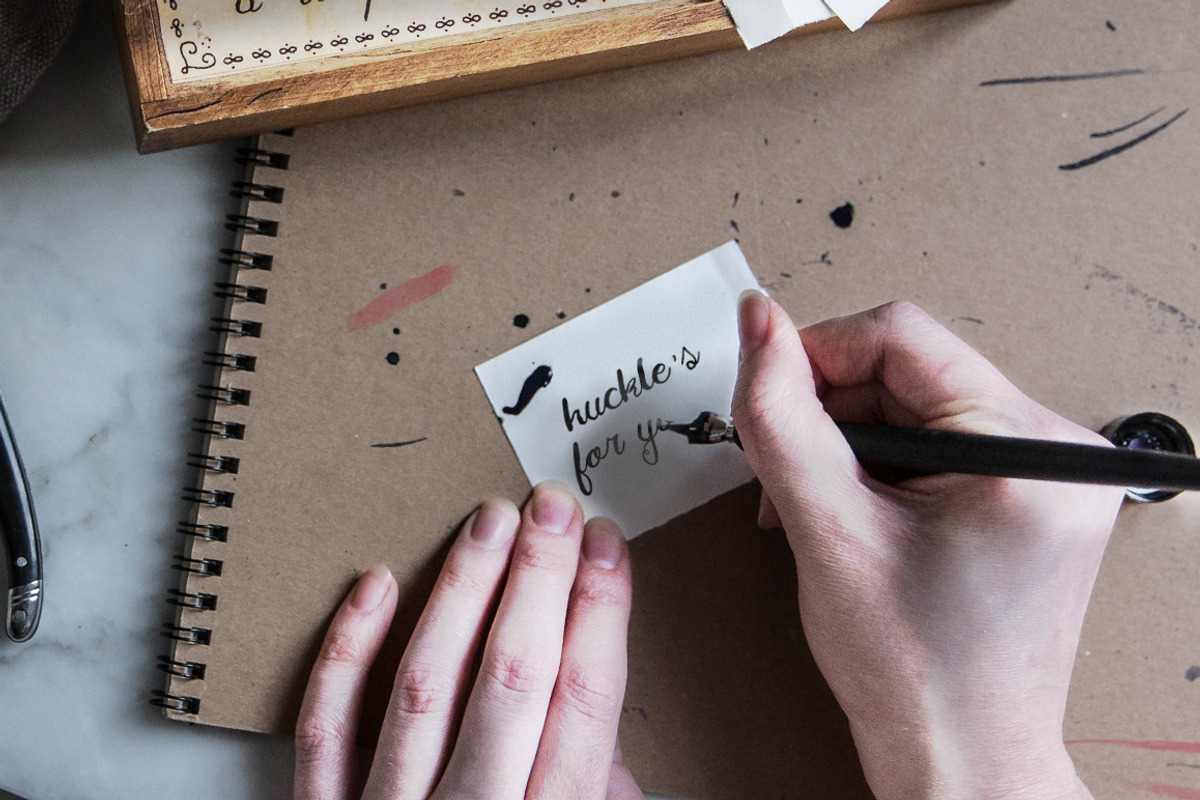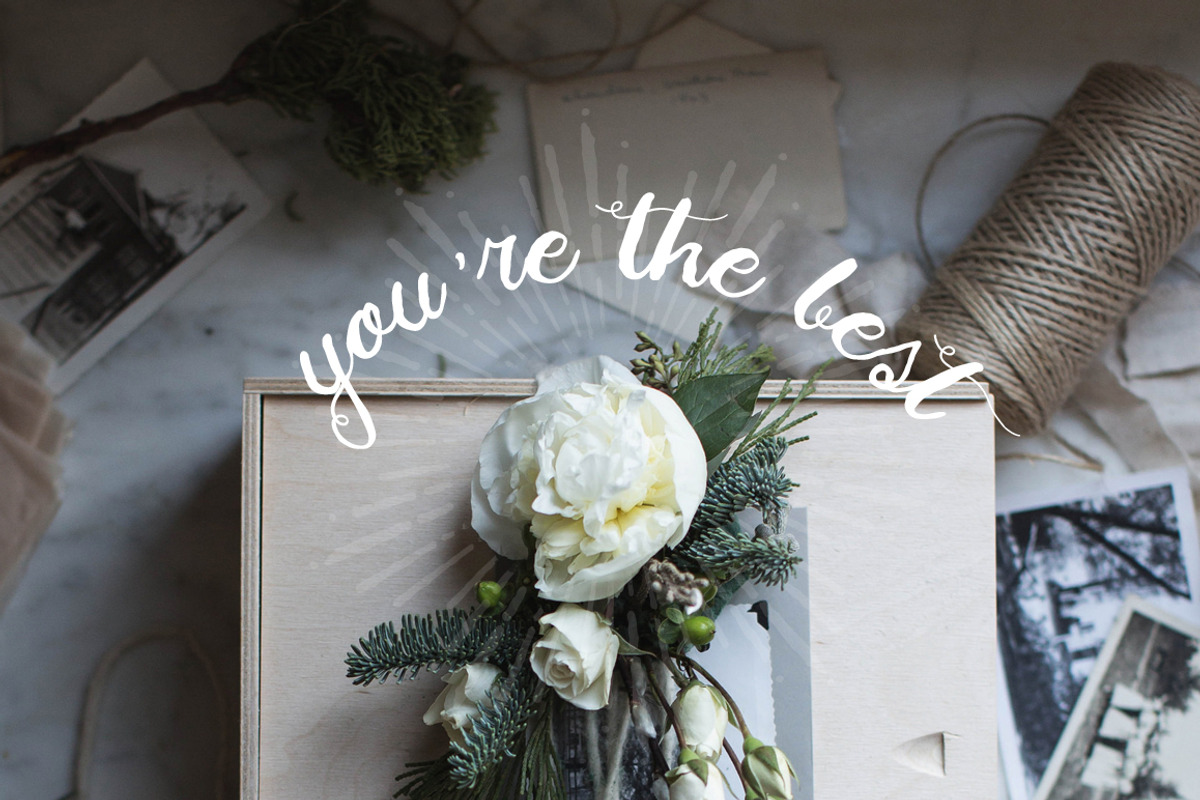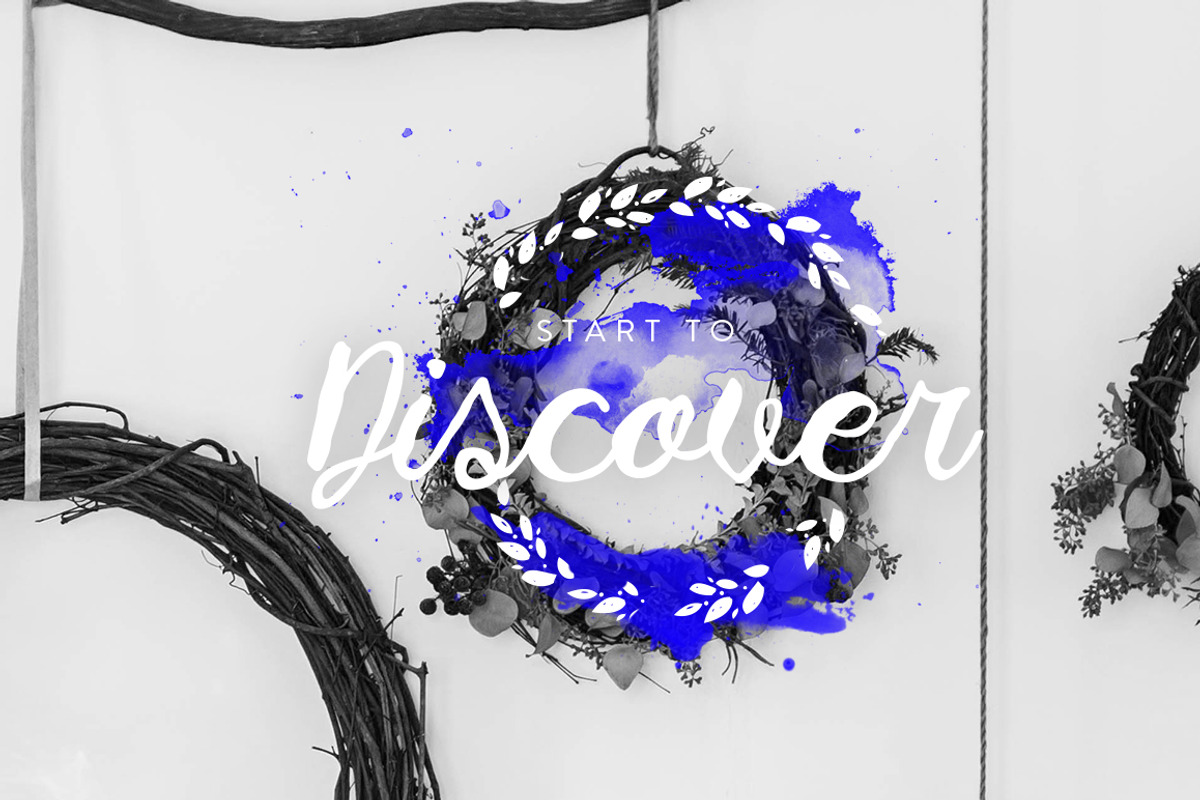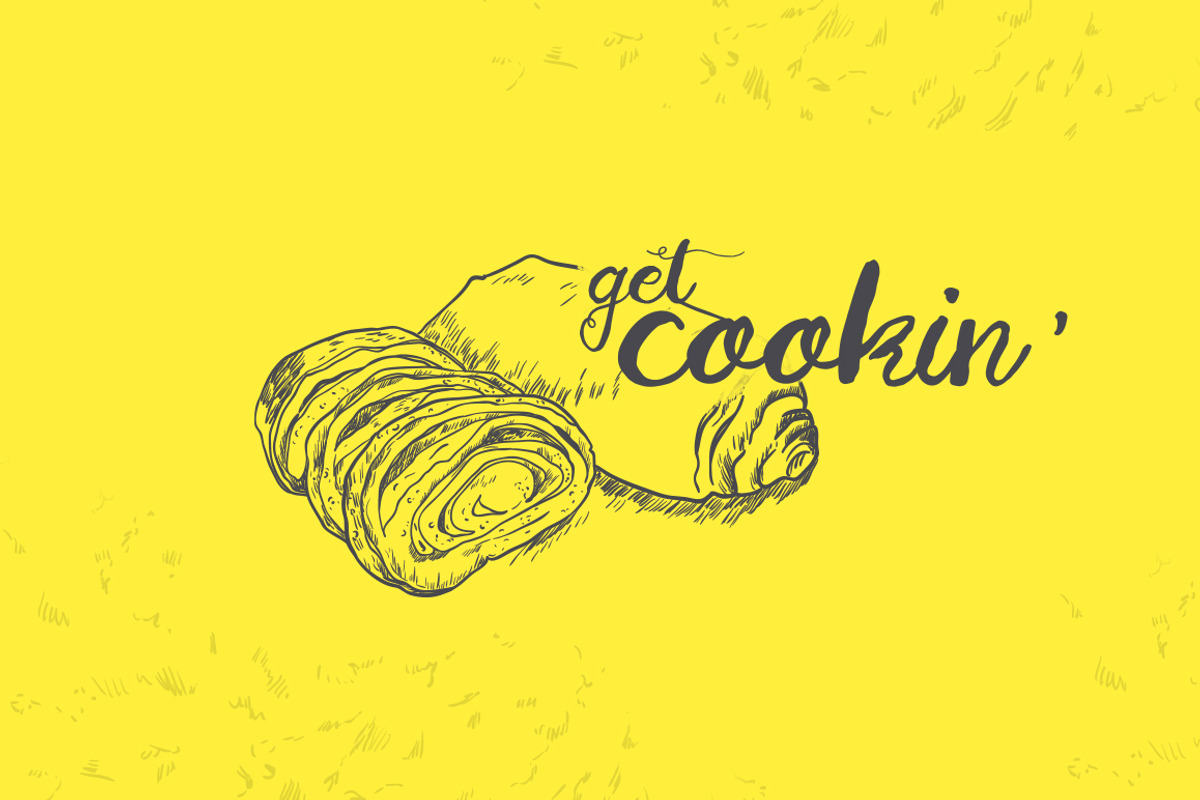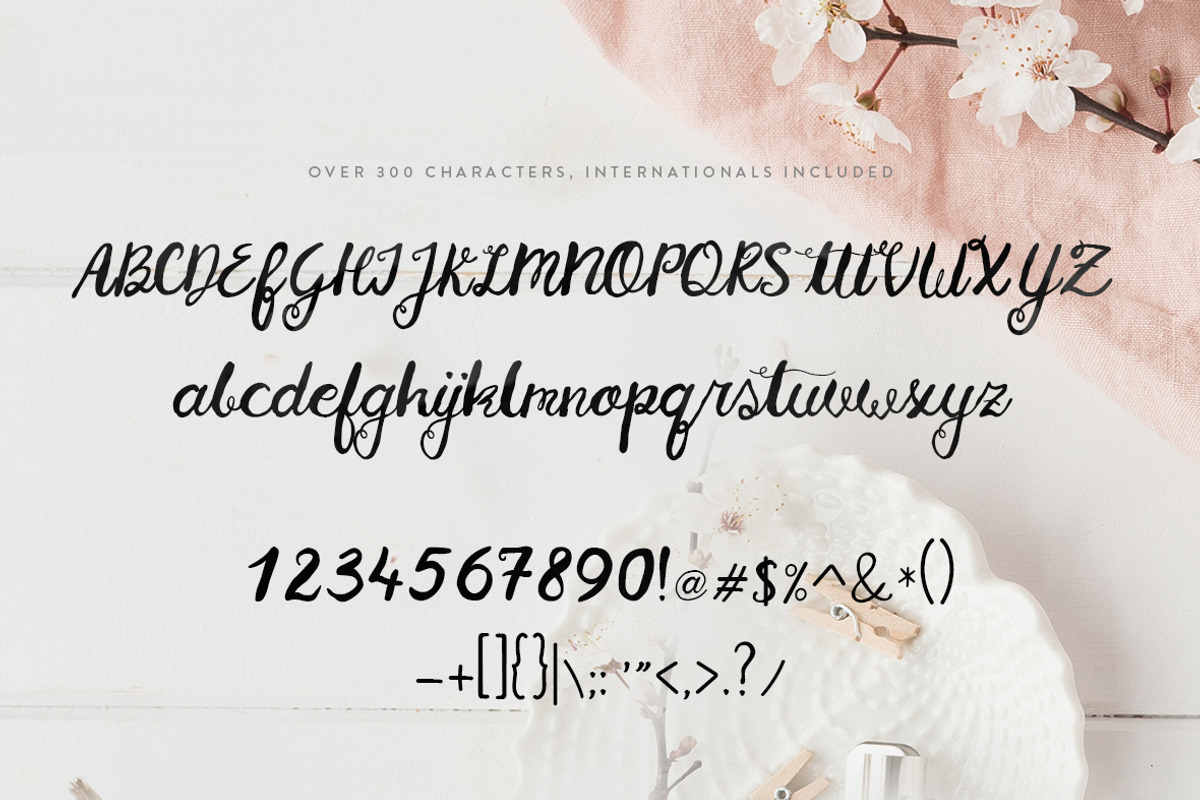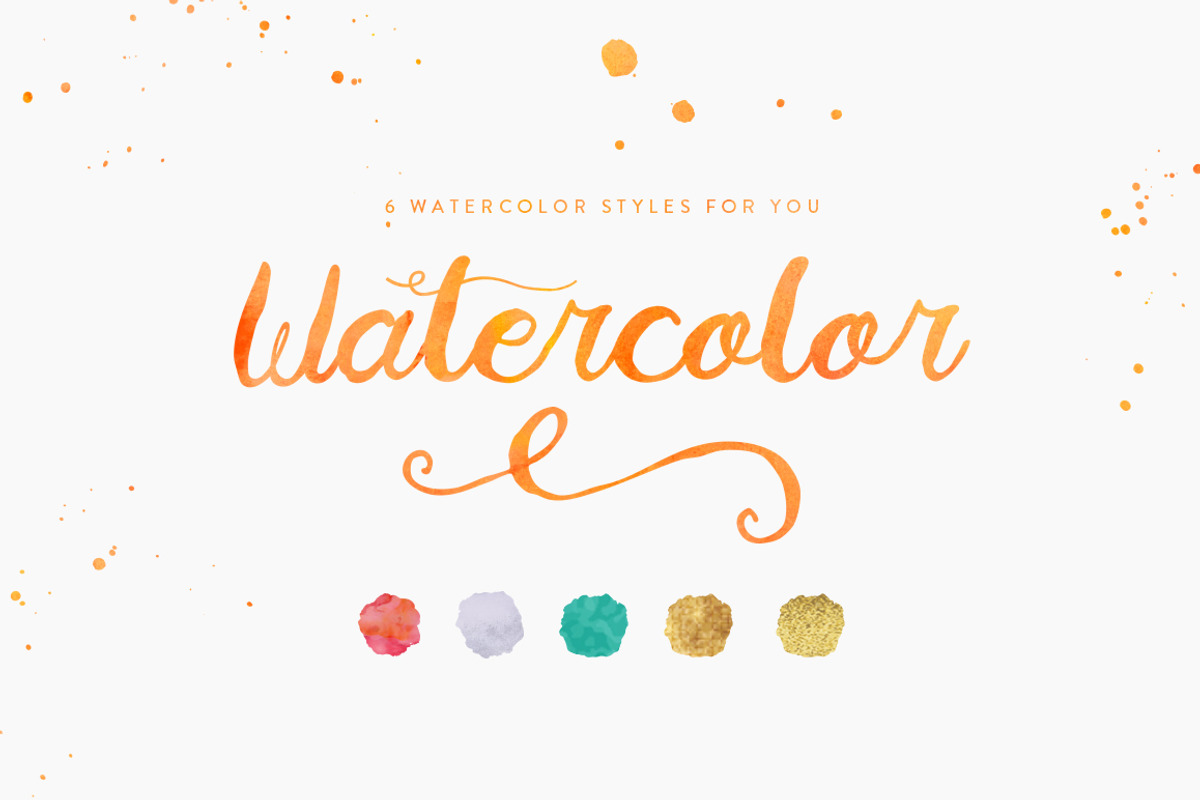
The Charming Huckleberry Font
The Charming Huckleberry Font by Carola-Corujan is a font selected for branding, posters, packaging, typography.
- It supports international characters as well as ligatures, a complete experience!
Why The Charming Huckleberry Font is worth a look
The Charming Huckleberry Font by Carola-Corujan fits naturally into Branding, posters, packaging, typography.